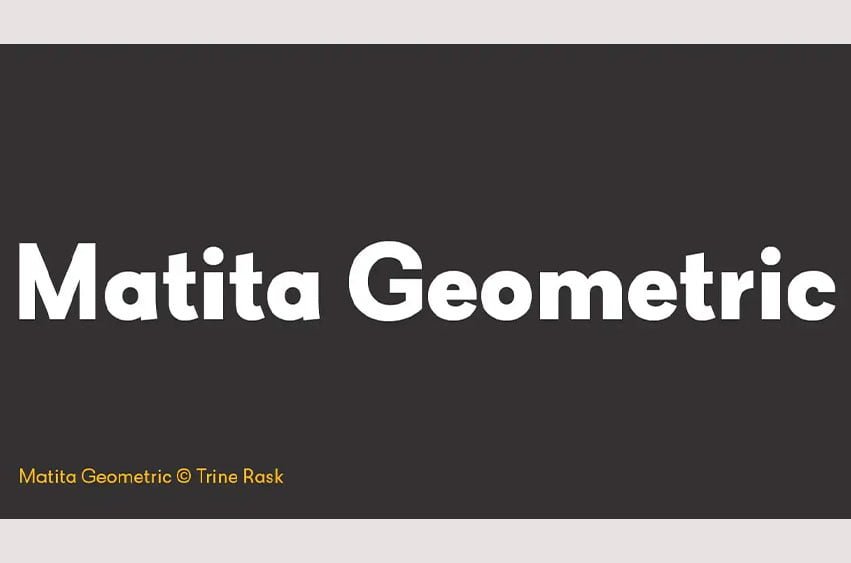
Matita Geometric Font
Matita Geometric Font is part of a larger type family developed from 2005-2019 with handwriting and teaching in mind. A humanistic geometric sans serif in five weights containing mathematical symbols, roman numerals, fractions, superior-& inferior numerals, tabular & proportional figures. The family share proportions and weights to ensure all fonts (family members) work together well. Matita Geometric is also a very basic typeface suitable for many purposes.